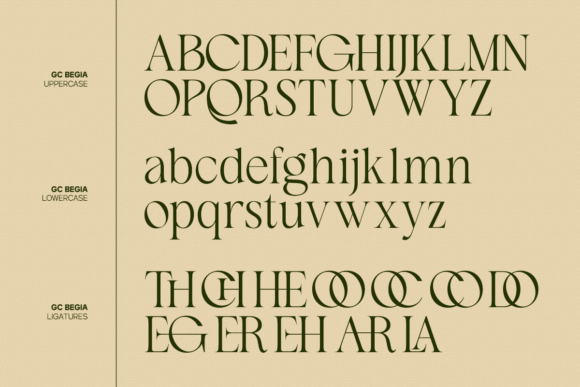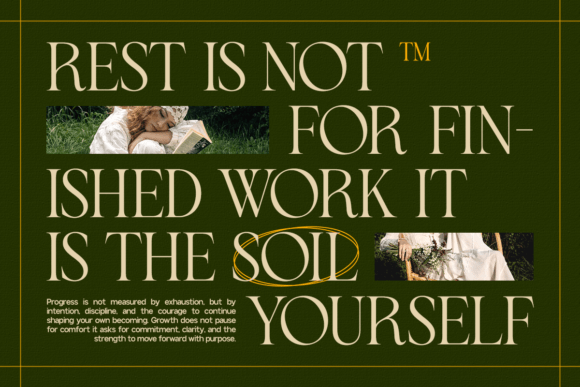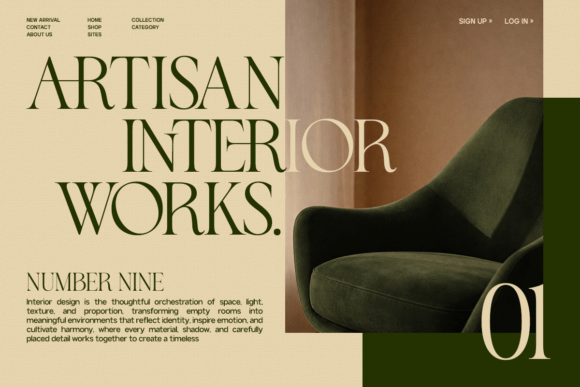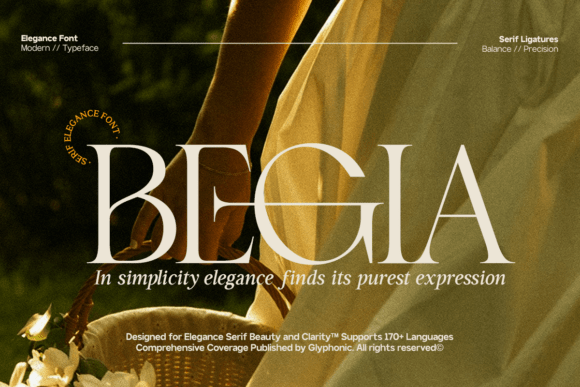
Introduction to Begia Font
Begia is a refined typeface designed to express elegance, sophistication, and contemporary luxury.
Blending modern design principles with a luxurious aesthetic, Begia is perfect for high-end branding, fashion editorials, beauty packaging, premium logos, and sophisticated visual identities Thoughtfully designed to bring harmony and character to your typography, Begia adapts effortlessly to a wide range of creative projectsβ€”from bold headlines to elegant compositions.